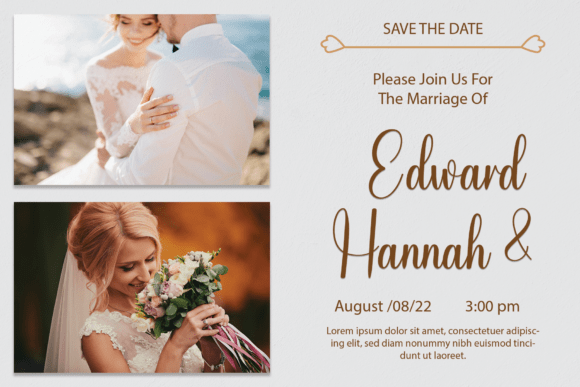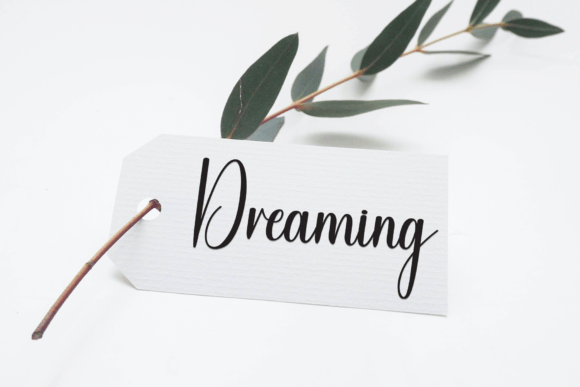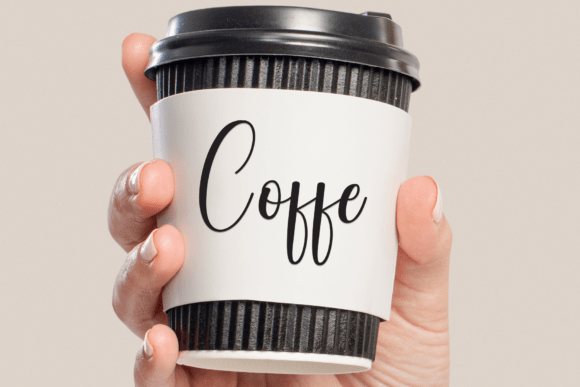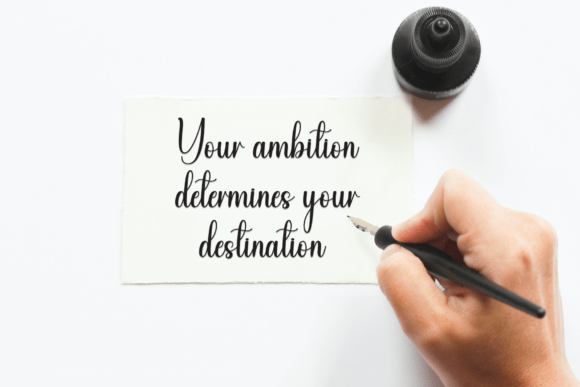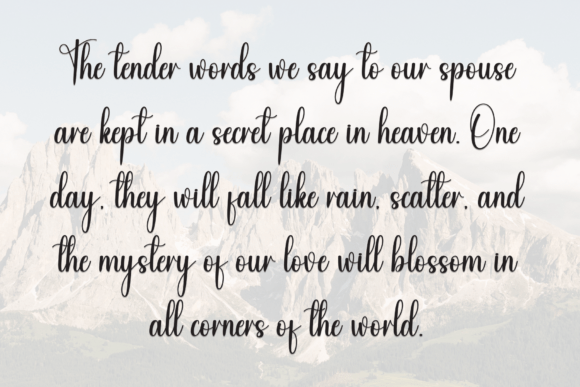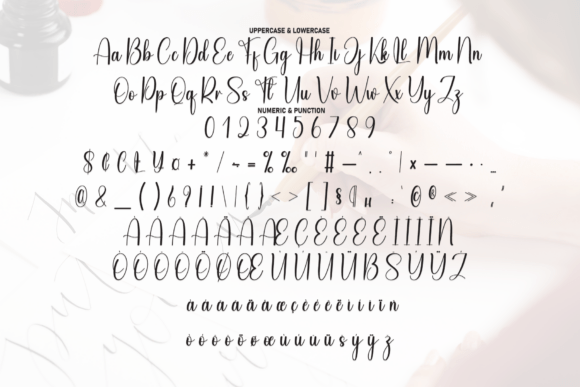
The Beauty of Handwritten Fonts: Elevate Your Design with a Personal Touch
Handwritten fonts have a way of adding a personal touch to any design project. They evoke a sense of warmth, elegance, and sophistication, making them perfect for a wide range of applications, from quotes and invitations to product labels and lifestyle branding. In this article, we’ll explore the world of handwritten fonts, with a focus on the Handwritten Font collection, a beautiful and versatile set of fonts with a natural script style.
The Power of Handwritten Fonts
Handwritten fonts are a popular choice among designers and crafters because of their unique ability to add a human touch to a design. Unlike generic, computer-generated fonts, handwritten fonts are characterized by their imperfections and quirks, which give them a sense of authenticity and personality. Whether you’re looking to create a romantic and whimsical design or a modern and sleek one, handwritten fonts can help you achieve your goals.
Introducing the Handwritten Font Collection
The Handwritten Font collection is a stunning set of fonts that embodies the beauty and versatility of handwritten typography. With its natural script style, this font collection is perfect for everyday use, from social media posts and blog headers to invitations and product labels. The fonts in this collection are clean, stylish, and highly legible, making them easy to read and understand.
Key Features of the Handwritten Font Collection
- Natural Script Style: The Handwritten Font collection features a natural script style that mimics the look and feel of handwritten text.
- Clean and Stylish: The fonts in this collection are clean, stylish, and highly legible, making them perfect for a wide range of design applications.
- Versatile: The Handwritten Font collection is versatile and can be used for everyday design projects, from quotes and invitations to product labels and lifestyle branding.
- Easily Readable: The fonts in this collection are highly legible, making them easy to read and understand.
Uses for Handwritten Fonts
Handwritten fonts are incredibly versatile and can be used in a wide range of design applications. Here are some popular uses for handwritten fonts:
- Invitations and Announcements: Handwritten fonts are perfect for creating beautiful and elegant invitations and announcements.
- Quotes and Posters: Handwritten fonts can add a touch of personality and whimsy to quotes and posters.
- Product Labels and Packaging: Handwritten fonts can be used to create unique and eye-catching product labels and packaging.
- Lifestyle Branding: Handwritten fonts can be used to create a cohesive and stylish brand identity for lifestyle businesses.
Tips for Using Handwritten Fonts
Here are some tips for using handwritten fonts in your design projects:
- Keep it Simple: Handwritten fonts can be overwhelming if overused. Keep your design simple and elegant by using one or two fonts at most.
- Choose the Right Font Size: Choose a font size that is easy to read and understand. Avoid using fonts that are too small or too large.
- Experiment with Colors and Textures: Handwritten fonts can be paired with a wide range of colors and textures. Experiment with different combinations to find the one that works best for your design.
The Handwritten Font collection is a beautiful and versatile set of fonts that can add a personal touch to any design project. With its natural script style, clean and stylish design, and high legibility, this font collection is perfect for everyday use. Whether you’re a designer, crafter, or DIY enthusiast, handwritten fonts can help you create unique and eye-catching designs that stand out from the crowd.